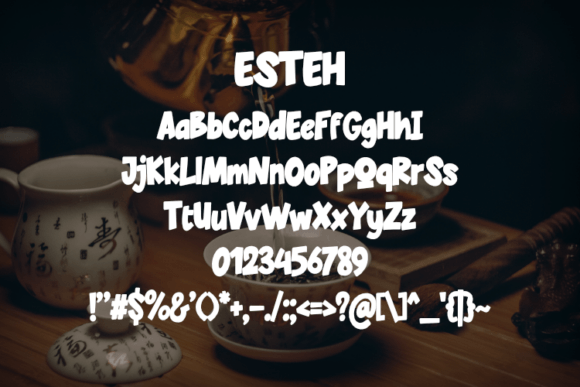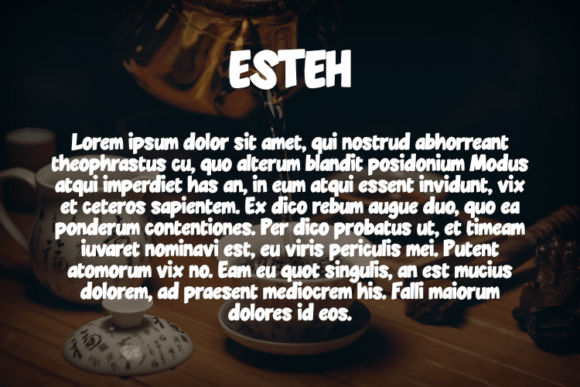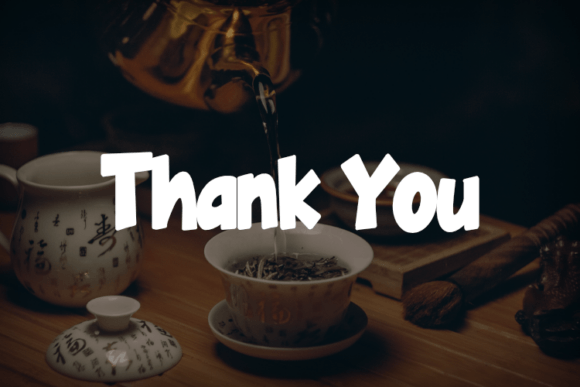
Introducing Esteh Font: The Ultimate Choice for Bold and Modern Designs
Are you a designer or crafter looking for a font that can elevate your visual creations to the next level? Look no further than Esteh Font, a bold sans-serif font that exudes a clean and modern aesthetic. With its thick, simple letters and exceptional readability, Esteh Font is the perfect choice for headlines, posters, and eye-catching designs that demand attention.
The Characteristics of Esteh Font
Esteh Font boasts a range of characteristics that make it an ideal choice for designers and crafters. Its bold and sans-serif design ensures that your text stands out from the crowd, while its clean and modern look guarantees a sophisticated and professional finish. The font’s thick letters are easy to read, even at smaller sizes, making it versatile for use in a variety of applications.
Why Choose Esteh Font?
So, why should you choose Esteh Font for your design projects? Here are just a few compelling reasons:
- Exceptional Readability: Esteh Font’s simple and bold design makes it easy to read, even from a distance. This makes it perfect for headlines, posters, and other visual materials where impact is key.
- Versatility: Esteh Font is suitable for a wide range of design applications, from digital media to print materials. Its clean and modern look ensures that it will fit in with any design style or aesthetic.
- Professional Finish: With Esteh Font, you can achieve a professional finish that will elevate your designs to the next level. Its bold and sans-serif design ensures that your text will stand out, while its clean and modern look guarantees a sophisticated finish.
How to Use Esteh Font in Your Designs
Using Esteh Font in your designs is easy. Here are a few tips to get you started:
- Headlines and Titles: Use Esteh Font to create bold and eye-catching headlines and titles. Its exceptional readability makes it perfect for use in newspapers, magazines, and online publications.
- Posters and Flyers: Esteh Font is ideal for use in posters and flyers, where impact is key. Its bold and sans-serif design ensures that your message will stand out and grab attention.
- Digital Media: Use Esteh Font in your digital media, such as social media graphics, website headers, and email marketing campaigns. Its clean and modern look ensures that it will fit in with any digital design style or aesthetic.
Tips for Pairing Esteh Font with Other Fonts
Pairing Esteh Font with other fonts can create a visually appealing and harmonious design. Here are a few tips to get you started:
- Contrasting Fonts: Pair Esteh Font with a contrasting font, such as a serif font, to create visual interest and add depth to your design.
- Complementary Fonts: Use Esteh Font with a complementary font, such as a font with a similar style or aesthetic, to create a cohesive and harmonious design.
- Experiment with Font Sizes: Experiment with different font sizes to create visual hierarchy and add emphasis to your design.
In conclusion, Esteh Font is a bold and modern sans-serif font that is perfect for designers and crafters looking to elevate their visual creations to the next level. With its exceptional readability, versatility, and professional finish, Esteh Font is the ultimate choice for headlines, posters, and eye-catching designs. Whether you’re a seasoned designer or just starting out, Esteh Font is a must-have font that will help you create stunning visual materials that demand attention.